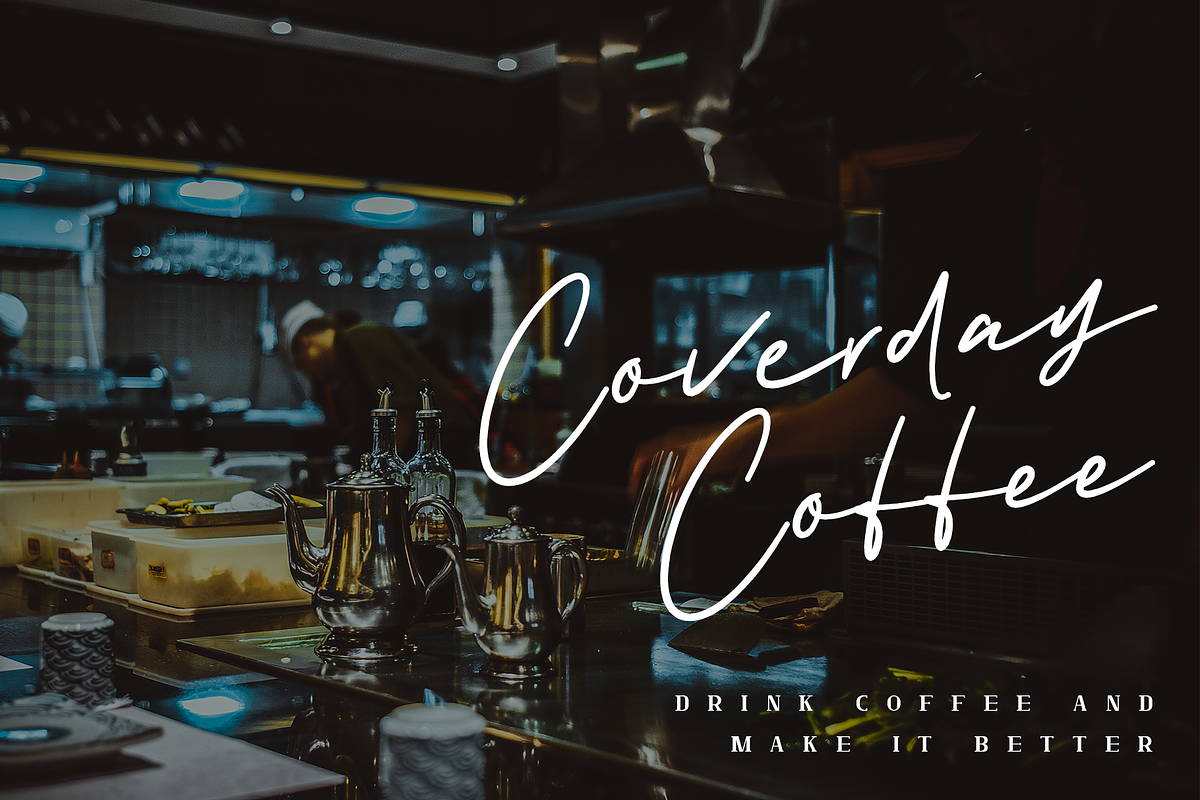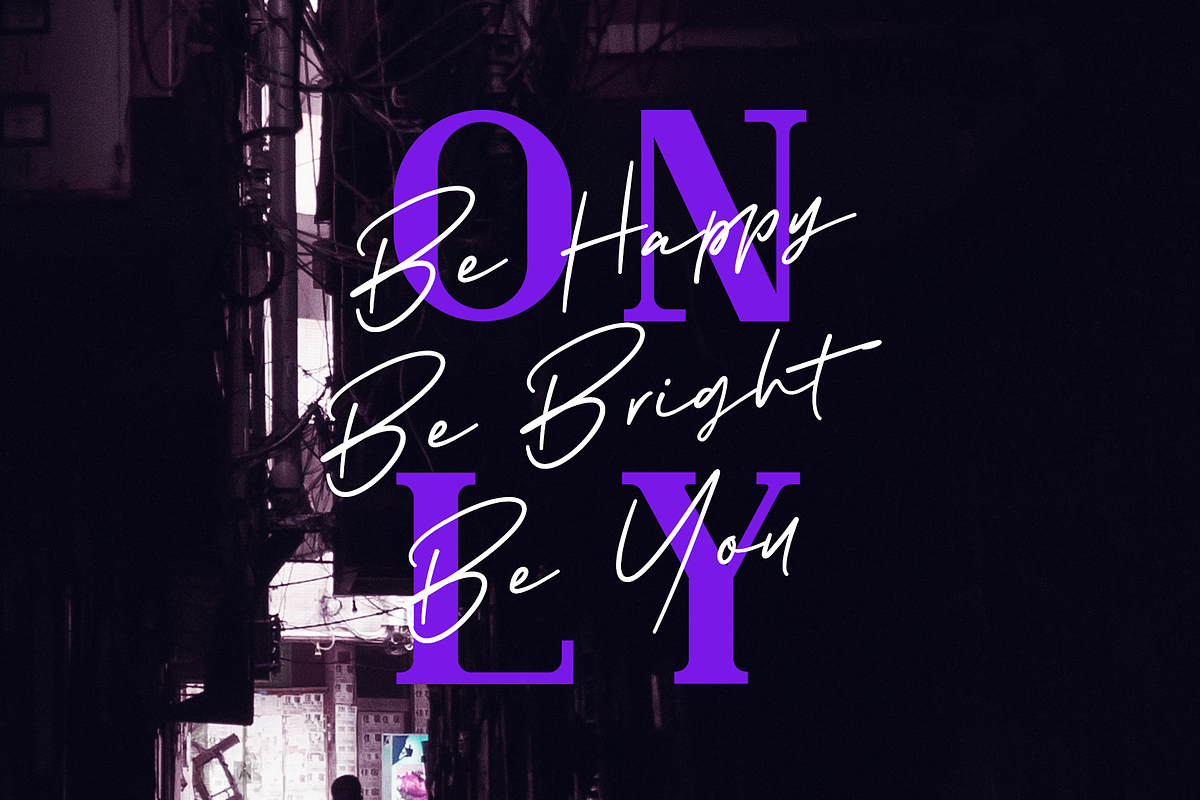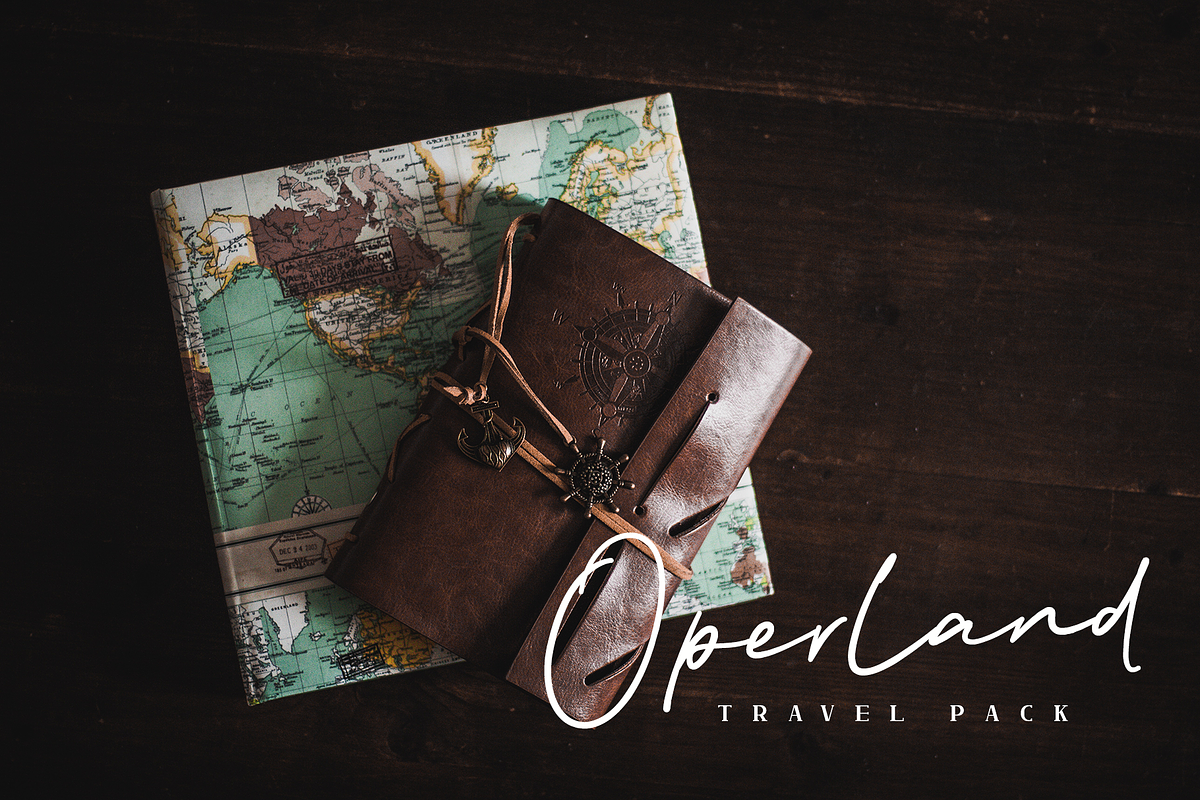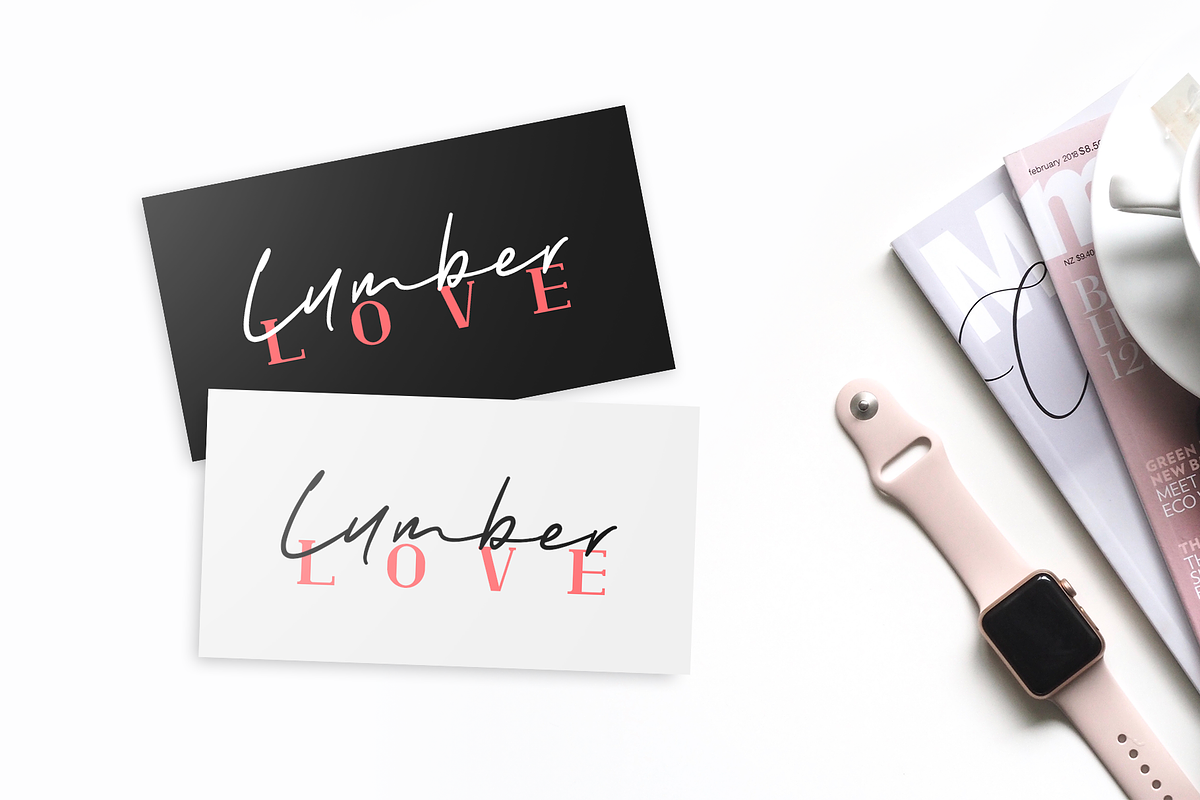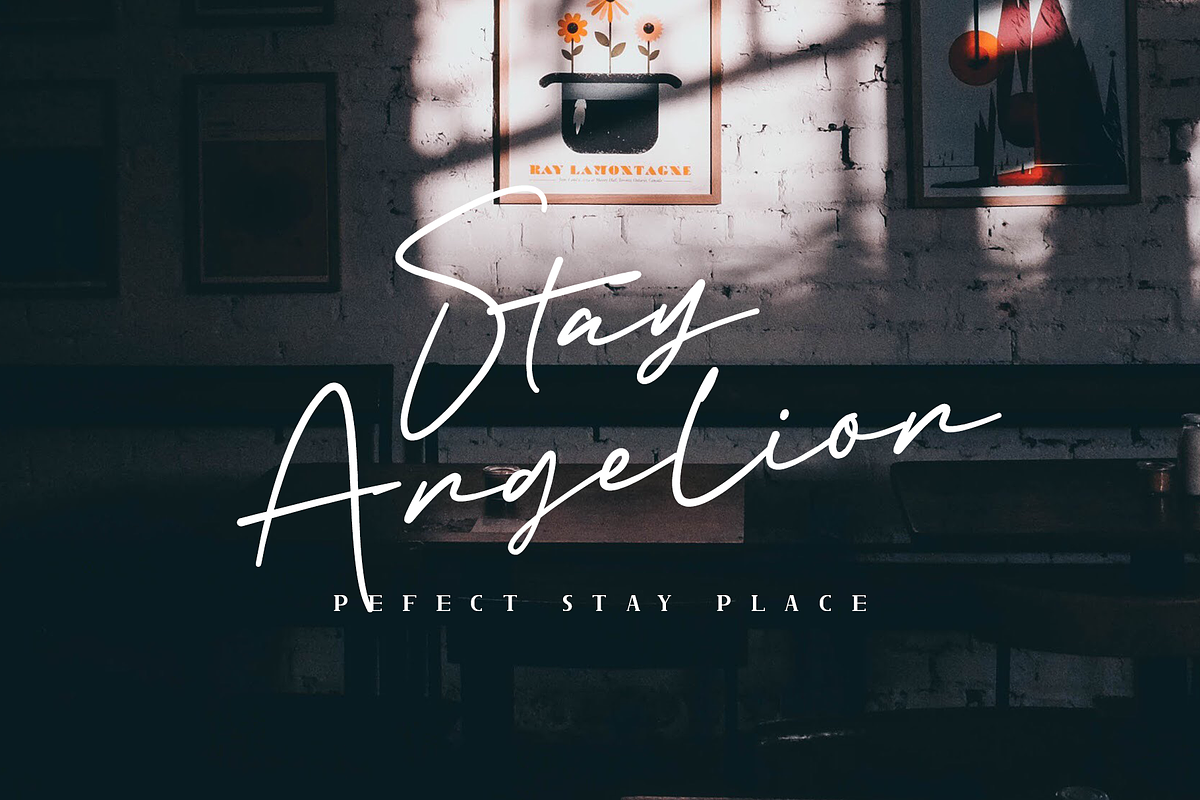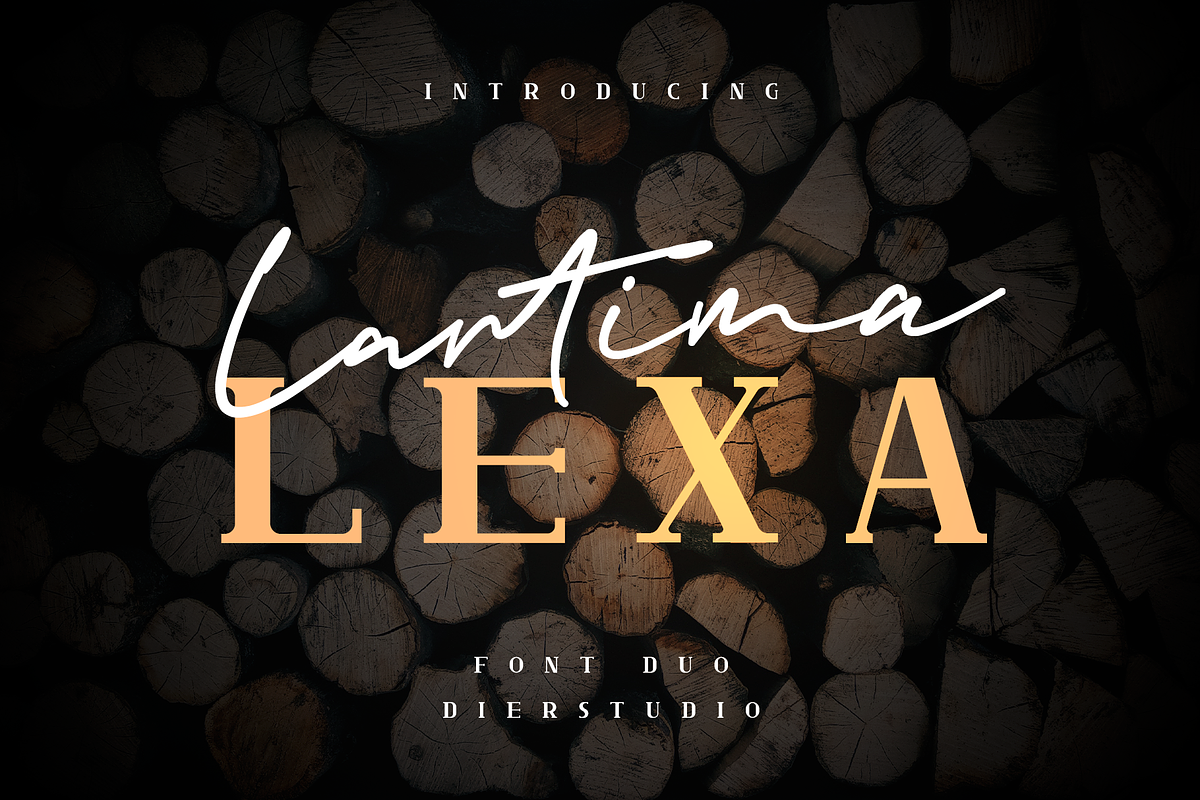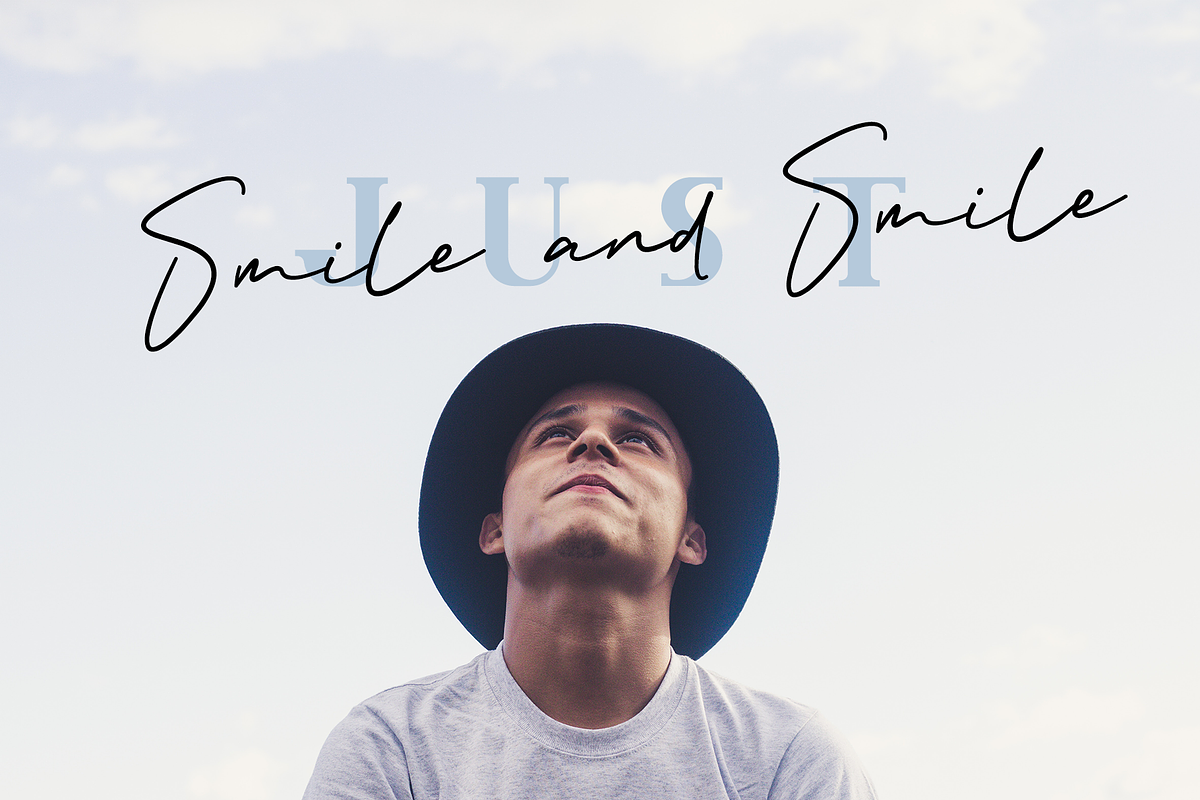
Lantima Lexa - Font Duo
Say hello to Lantima Lexa is a font duo which gives an elegant, modern and fashionable touch to your projects.
Lantima Lexa font was created to look as close to a natural handwritten with serif font which modern and assertive impression, and this include with 24 ligature this make this font perfect for you
Lantima Lexa font is to use for any kind of design such as branding projects, logos, social media posts, advertisements, product packaging, product designs, labels, photography, watermarks, invitation, stationery and any projects.
The ton of glyphs (include Uppercase, Lowercase, Ligature, lowercase & Uppercase Alternate, Numerals & Punctuations)